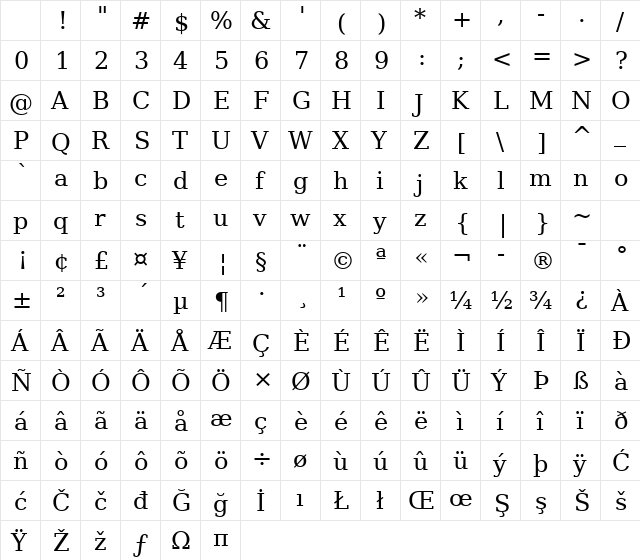
Complete ae_AlBattar Regular glyph index. Displaying only characters natively supported by ae_AlBattar Regular font.
ae_AlBattar is a composed and adaptable typeface that performs quietly and consistently across a wide range of design contexts.